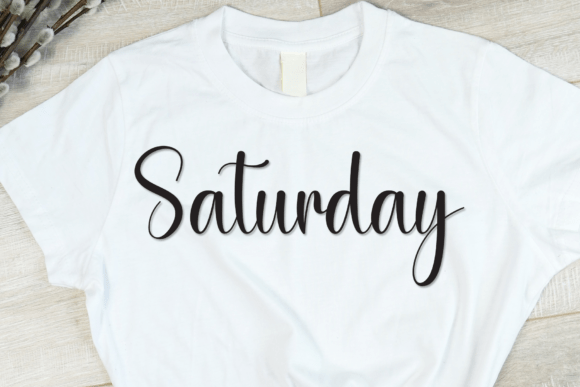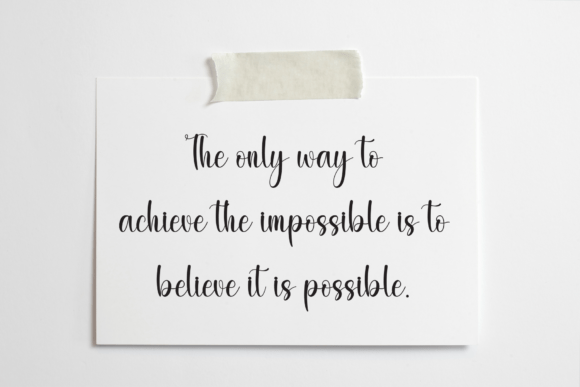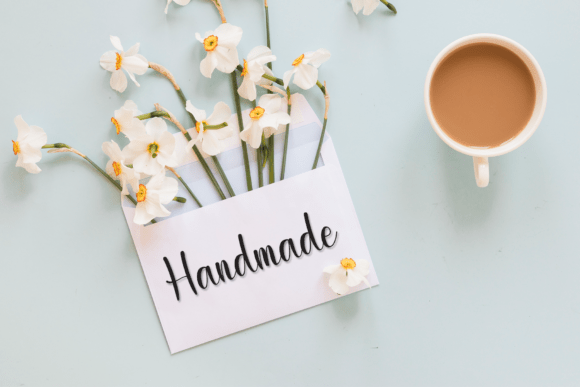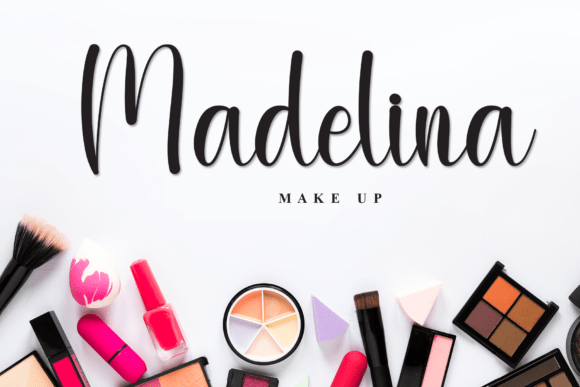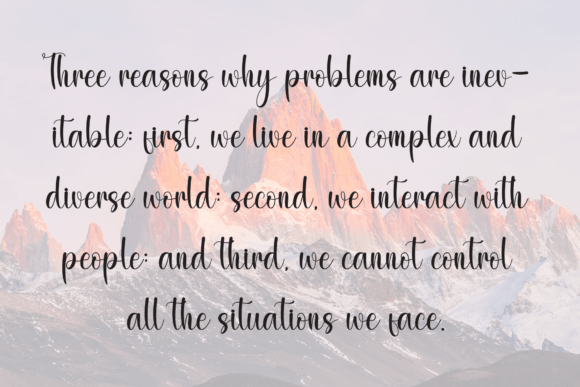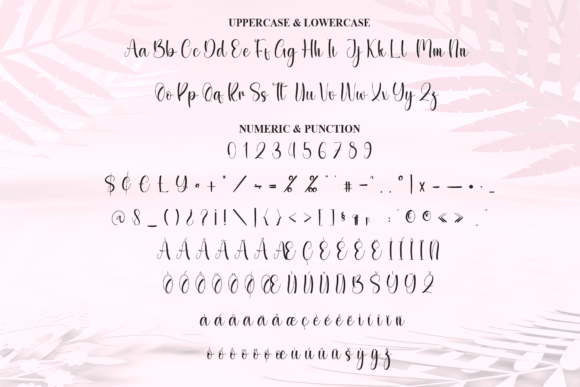
Unlock the Magic of Beauty Font
Have you ever found yourself staring at a blank page, searching for the perfect font to bring your creative vision to life? We’ve all been there – and that’s exactly where the enchanting Beauty Font comes in. This charming handwritten font is the ultimate game-changer for designers and creatives seeking to add a touch of whimsy and personality to their projects.
With its playful appeal, Beauty Font effortlessly transforms wedding invitations, greeting cards, and an array of other designs with an added sprinkle of fun. Whether you’re a professional designer or a DIY enthusiast, this delightful font is sure to bring a smile to your face and a touch of warmth to your creations.
For those creative projects yearning for a delightful and friendly touch, Beauty Font is indeed your go-to font – and we can’t wait to see the beauty you create with it!
Beauty Font Key Features
- Font Family: A beautiful, high-quality font designed for use in various digital media, including websites, documents, and presentations.
- Size: The font family includes a range of sizes, from 8 to 72 points, making it suitable for various applications, including body text, headings, and titles.
- Resolution: Designed to be scalable, Beauty Font can be used at various resolutions, including low-resolution displays and high-resolution printing.
- Unique Characteristics: The font features elegant, flowing lines and subtle curves, making it perfect for creative projects, such as invitations, menus, and branding materials.
- Character Count: The font family includes a comprehensive set of characters, including Latin, Cyrillic, and Greek alphabets, as well as punctuation and special characters.
Beauty Font Review
First off, let’s talk about what works well with Beauty Font. ✨ It’s definitely a stylish and modern font that can add a touch of elegance to any design project. The subtle curves and flowing lines give it a beautiful, organic feel that’s perfect for creative and artistic projects.
One of the standout features of Beauty Font is its versatility. ✨ It’s available in multiple weights and styles, making it easy to find the perfect fit for your project. Whether you’re looking for a bold, eye-catching headline or a delicate, subtle body text, Beauty Font has got you covered.
Here are some of the key features of Beauty Font that I think are worth highlighting:
- High-quality, professional design
- Available in multiple weights and styles
- Perfect for creative and artistic projects
- Can be used for both digital and print designs
While Beauty Font is a great font, there are a few limitations that I think are worth mentioning. ⚠️ For one, it’s not as legible at very small font sizes. If you’re planning to use it for body text, I would recommend using it at a minimum size of 12pt. Additionally, the font may not be compatible with all operating systems or devices.
- May not be legible at very small font sizes
- May not be compatible with all operating systems or devices
Overall, I think Beauty Font is a great choice for designers who are looking for a stylish and modern font. While it may have a few limitations, its versatility and high-quality design make it a great addition to any design project.
Beauty Font works well for headings, titles, and body text in Canva designs.
Beauty Font can be used for text overlays, titles, and captions in Photoshop and Illustrator.
Beauty Font can be used for headings, titles, and body text in PowerPoint and Word.
Beauty Font is a versatile font that can be used in a variety of design projects. Some common use cases include:
- Product labels and packaging
- Restaurant menus and signage
Remember to adjust the font size and style to fit your design needs.